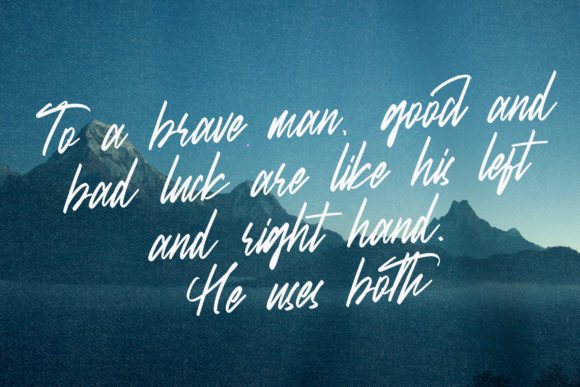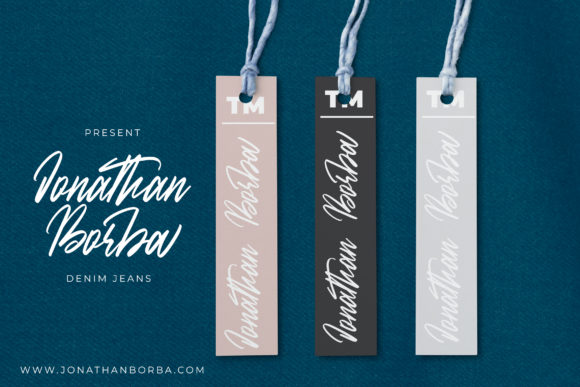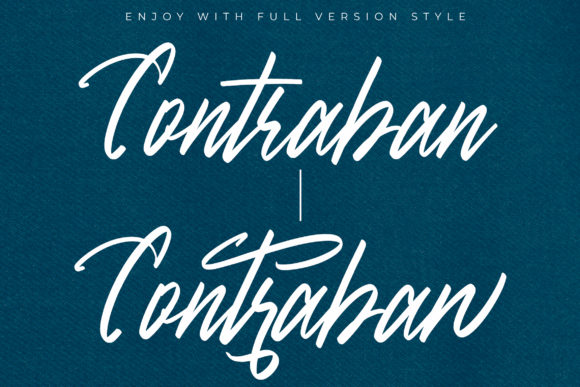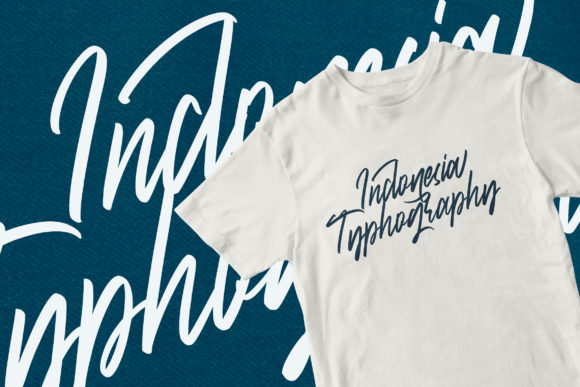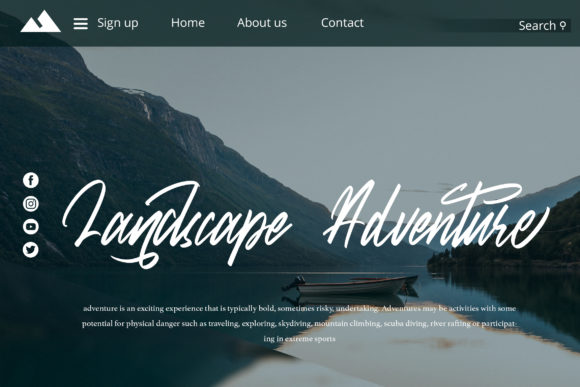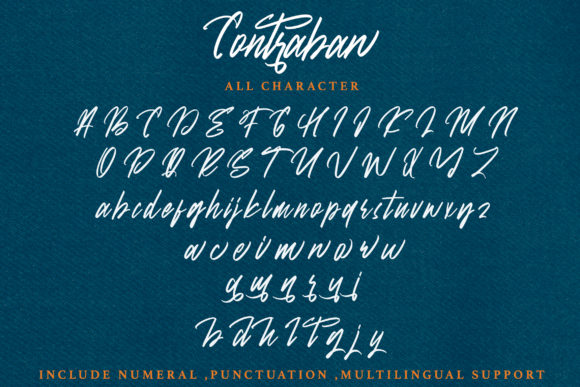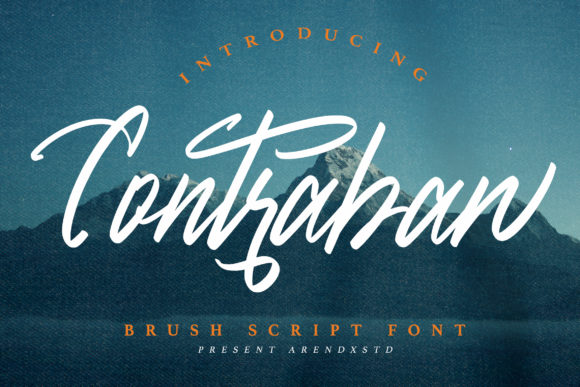
Introducing Contraban Font: The Perfect Blend of Trendiness and Elegance
Are you a designer, crafter, or digital artist looking for a font that can elevate your creative projects? Look no further than Contraban Font, a beautiful and flowing handwritten font that features the perfect amount of trendiness. In this article, we’ll dive into the world of Contraban Font and explore its features, uses, and benefits.
What is Contraban Font?
Contraban Font is a stunning handwritten font that is designed to add a touch of elegance and sophistication to your creative projects. Its flowing lines and curves make it perfect for a variety of applications, from crafting and digital designing to presentations and greeting cards making.
Key Features of Contraban Font
• Beautiful and Flowing Design: Contraban Font features a beautiful and flowing design that is sure to capture the attention of your audience.
• Perfect Amount of Trendiness: This font has the perfect amount of trendiness, making it ideal for designers and crafters who want to stay on top of the latest design trends.
• Versatile: Contraban Font is versatile and can be used for a variety of applications, including crafting, digital designing, presentations, and greeting cards making.
• Easy to Read: Despite its elegant design, Contraban Font is easy to read, making it perfect for body text and headings.
Uses of Contraban Font
Contraban Font is perfect for a variety of creative projects, including:
• Crafting: Use Contraban Font to add a personal touch to your crafting projects, such as scrapbooking, card making, and journaling.
• Digital Designing: Contraban Font is perfect for digital designers who want to create stunning graphics, logos, and branding materials.
• Presentations: Add a touch of elegance to your presentations with Contraban Font, making them more engaging and memorable.
• Greeting Cards Making: Use Contraban Font to create beautiful and personalized greeting cards for special occasions.
Benefits of Using Contraban Font
By using Contraban Font, you can:
• Elevate Your Designs: Contraban Font can help you create stunning designs that stand out from the crowd.
• Save Time: With Contraban Font, you can save time and effort in creating beautiful designs, allowing you to focus on other aspects of your project.
• Improve Readability: Contraban Font is easy to read, making it perfect for body text and headings, and improving the overall readability of your designs.
Tips for Using Contraban Font
Here are some tips for using Contraban Font:
• Pair it with Other Fonts: Contraban Font can be paired with other fonts to create a unique and interesting design.
• Experiment with Colors: Try out different colors and color combinations to find the perfect match for your design.
• Use it for Headings and Titles: Contraban Font is perfect for headings and titles, adding a touch of elegance and sophistication to your designs.
In conclusion, Contraban Font is a beautiful and flowing handwritten font that features the perfect amount of trendiness. Its versatility, elegance, and readability make it perfect for a variety of creative projects, from crafting and digital designing to presentations and greeting cards making. By using Contraban Font, you can elevate your designs, save time, and improve readability. So why wait? Try Contraban Font today and take your designs to the next level!